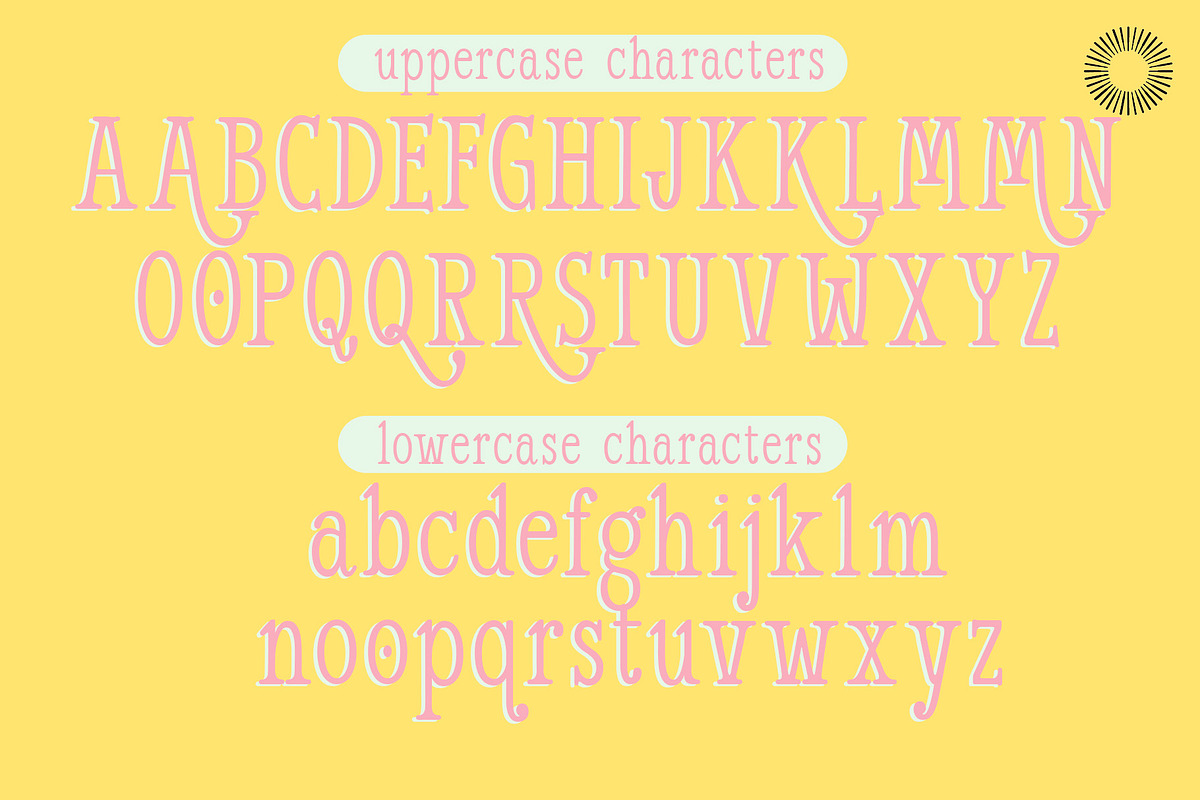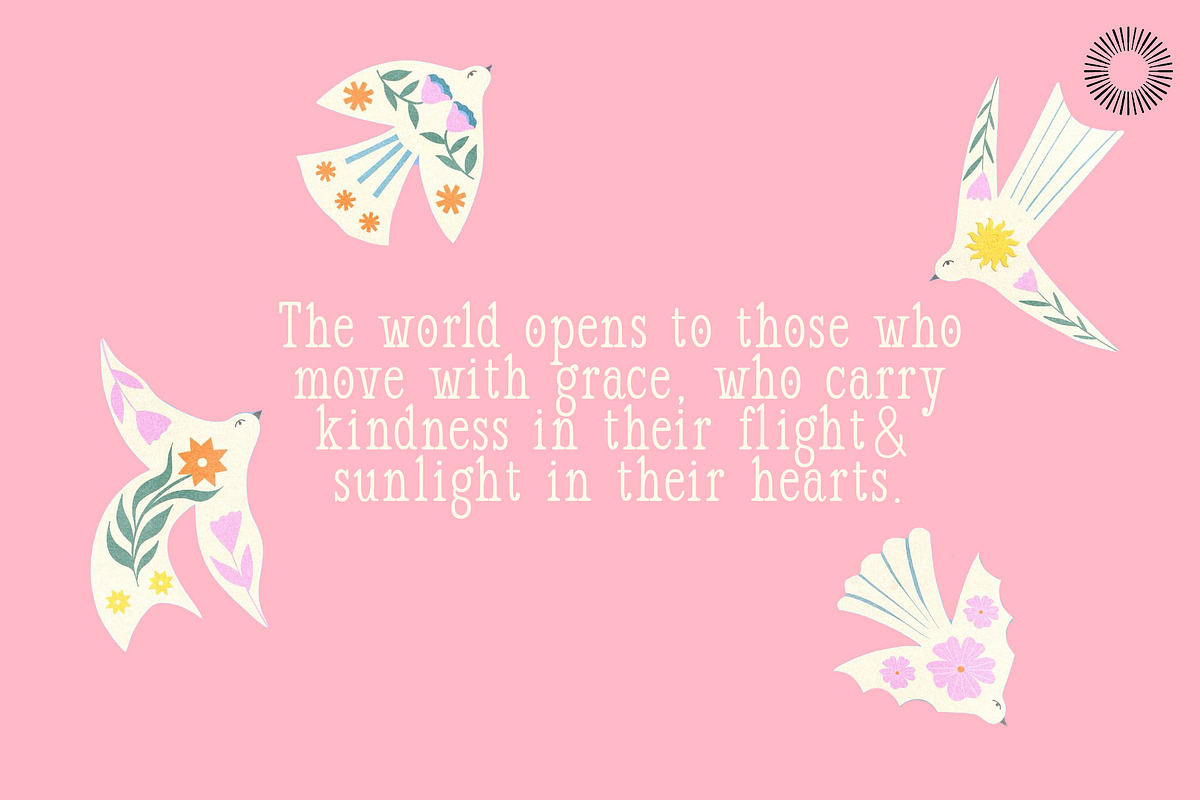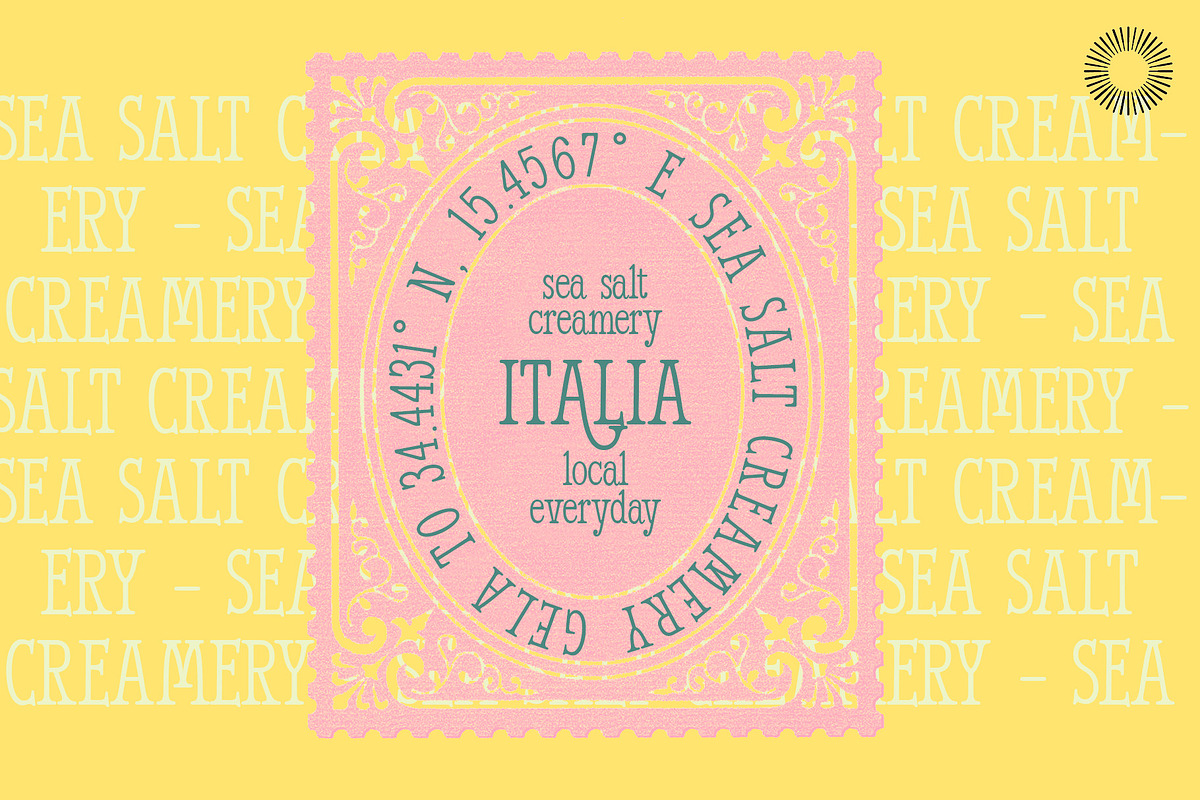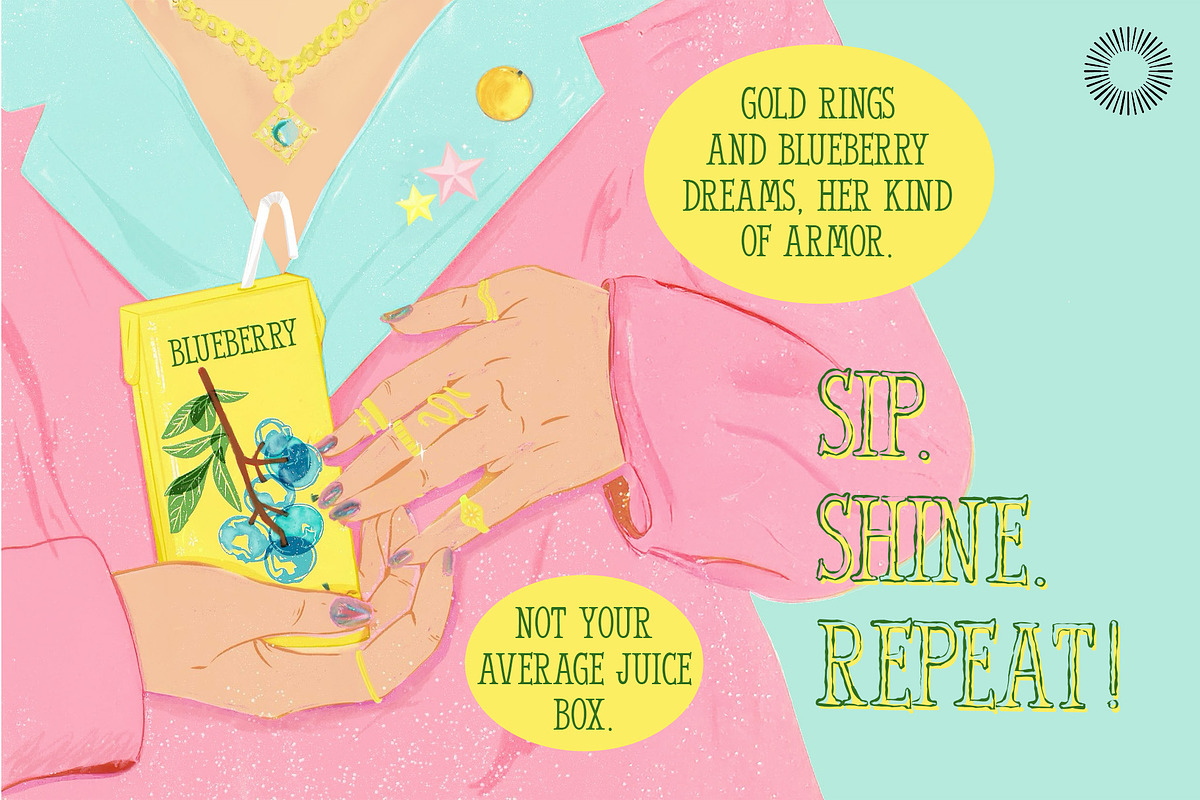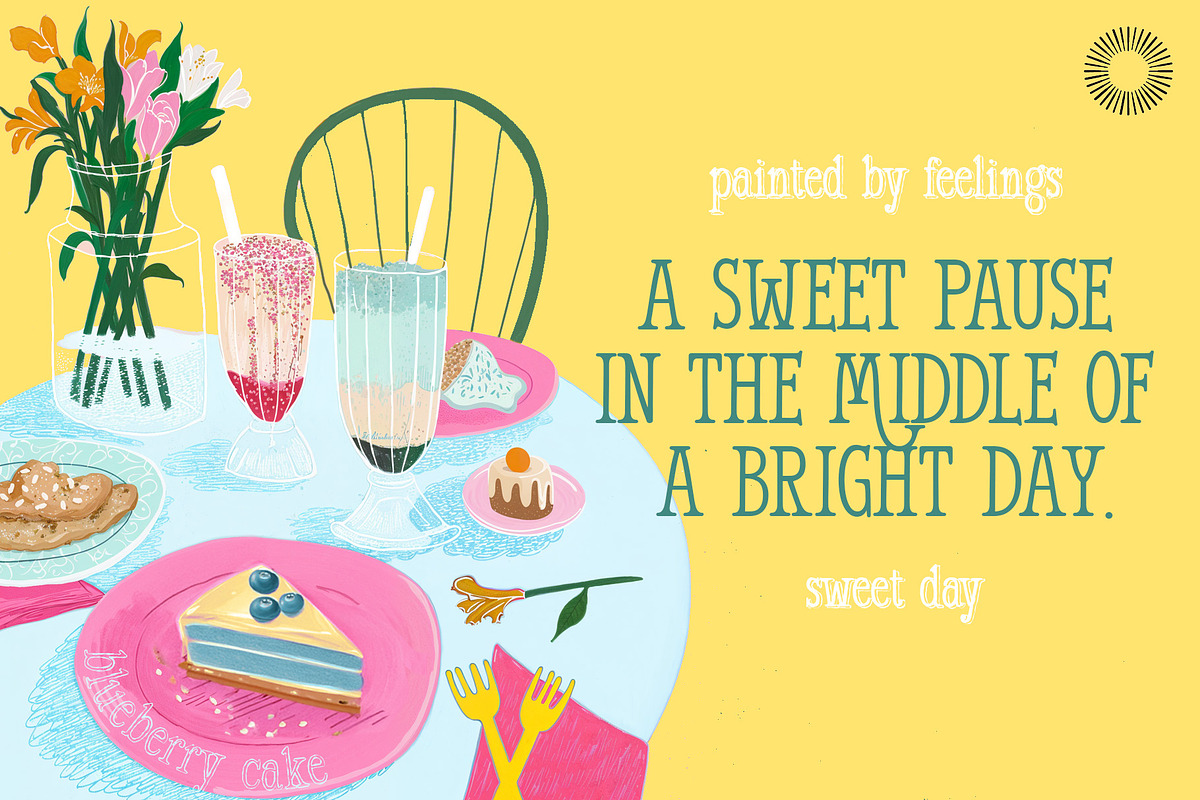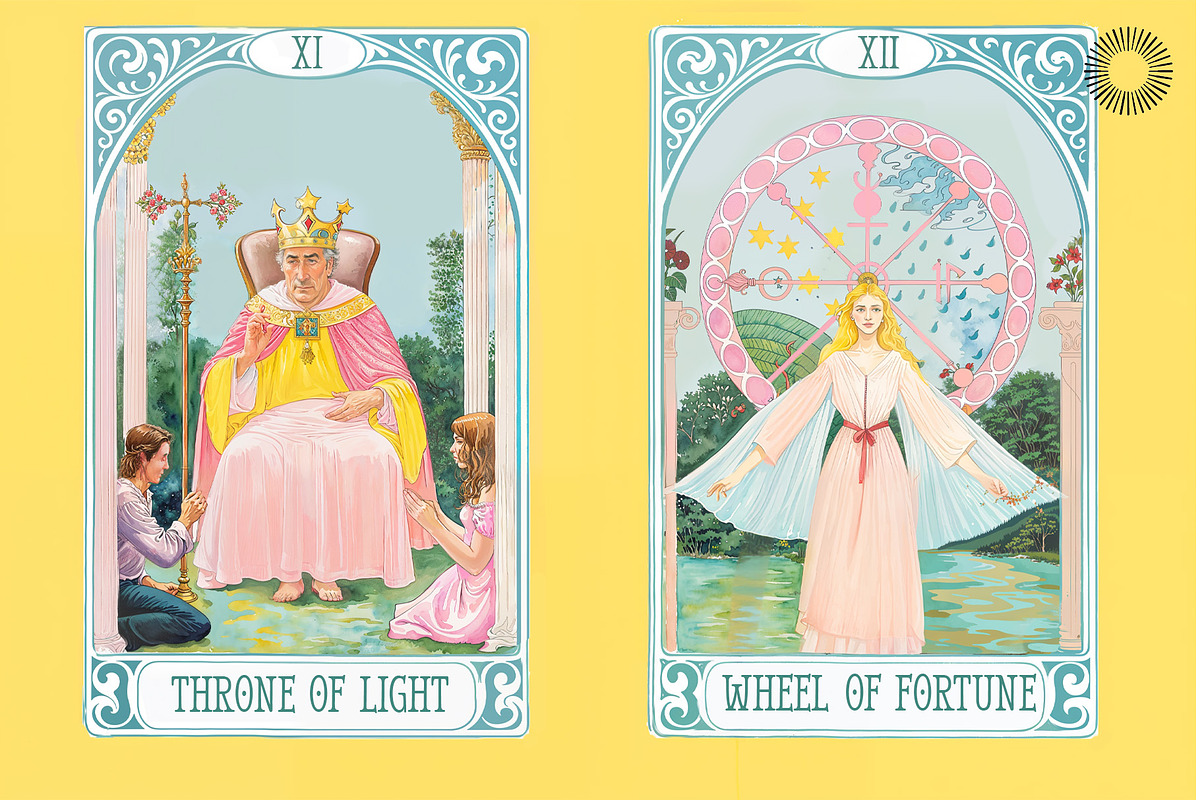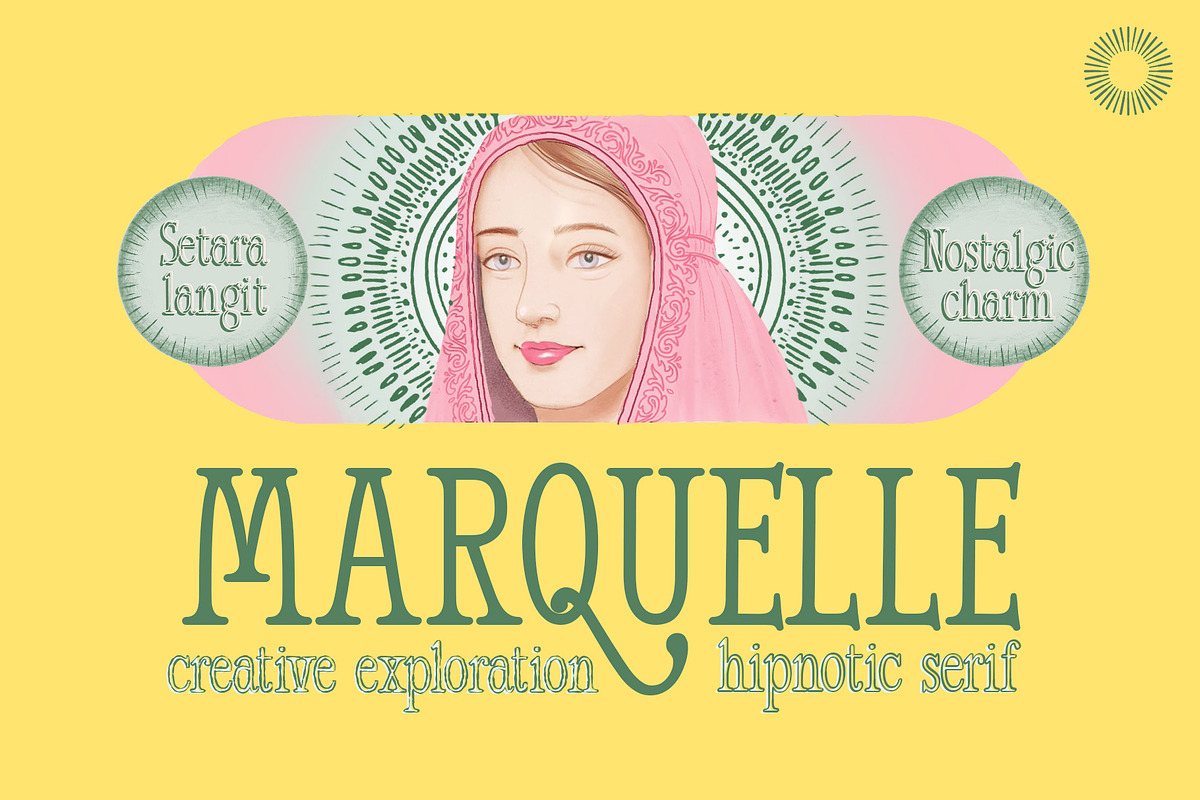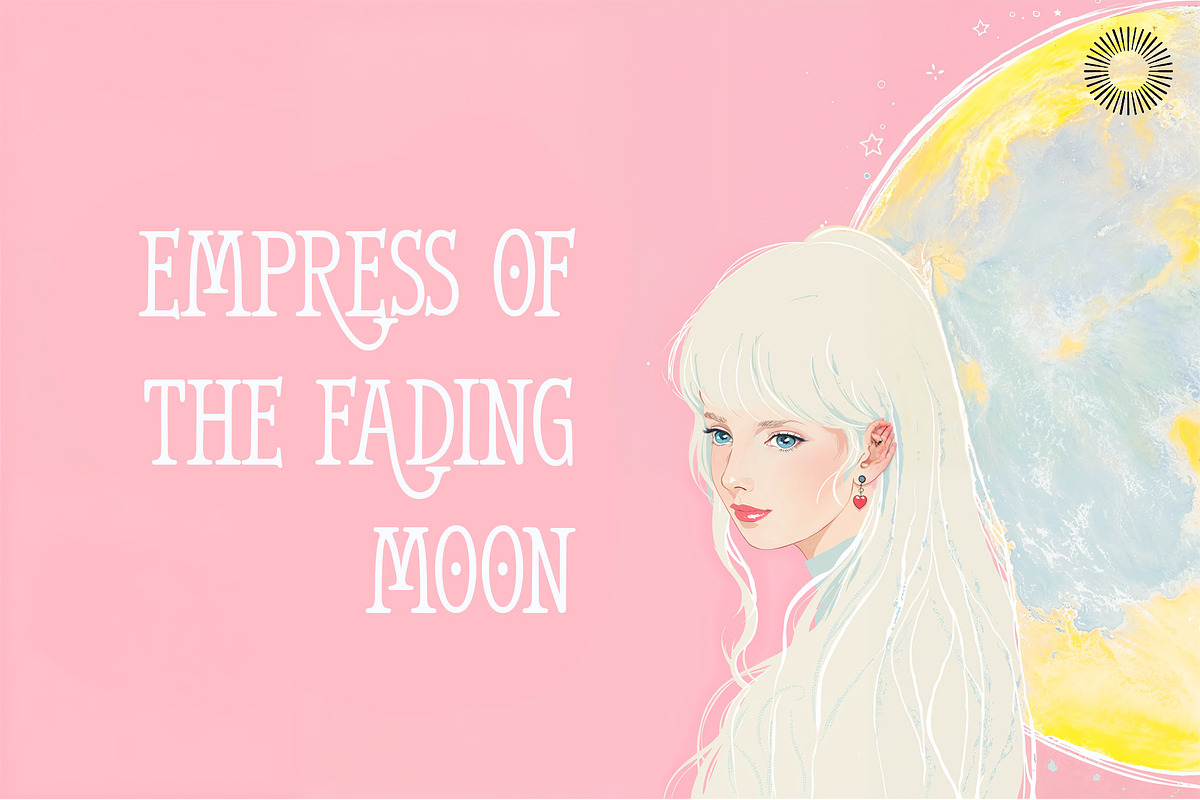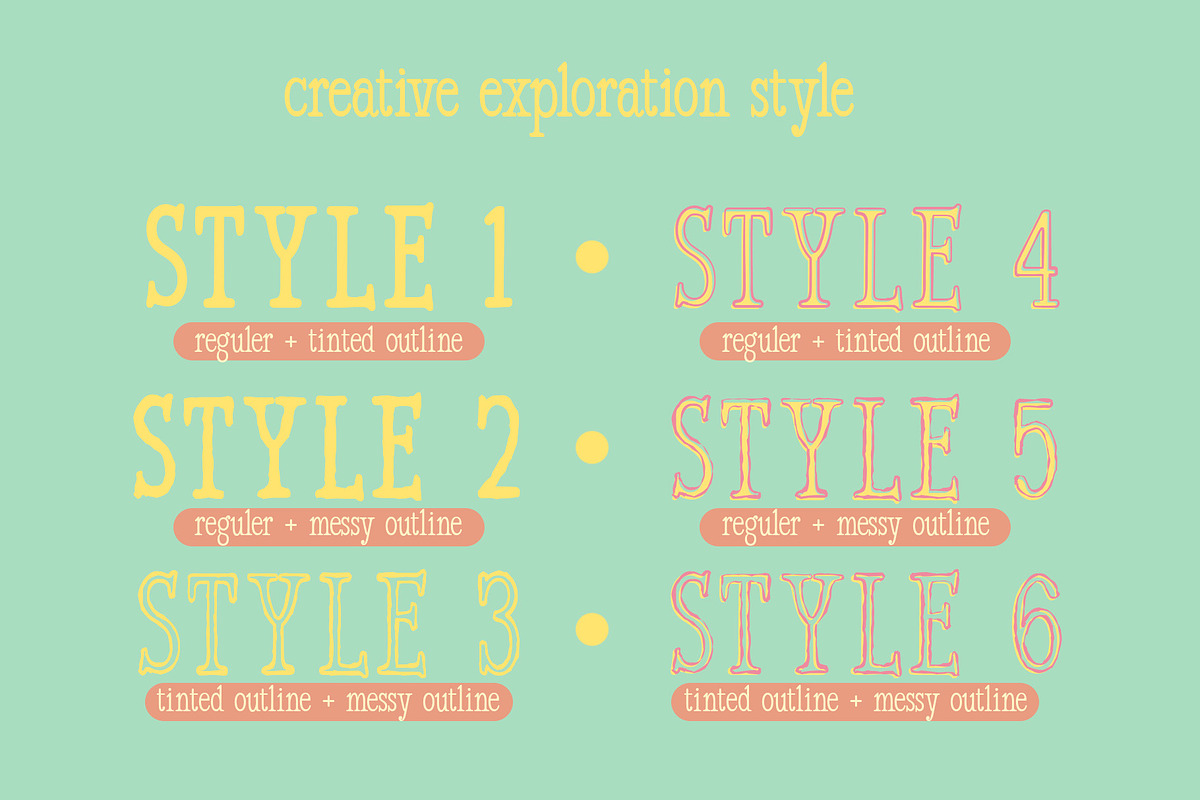
Marquelle - Nostalgic charm
Marquelle is a hypnotic serif that blends nostalgia and creative exploration into one graceful form. Each curve carries the warmth of vintage charm, while its elegant structure keeps every word captivating and timeless. Designed to echo the beauty of classic typography, Marquelle invites you to step into an era where letters were crafted with soul and intention. From delicate serifs to its slightly whimsical rhythm, this font dances between old-world romance and modern curiosity. Perfect for posters, branding, and editorial works that long for both story and sophistication, Marquelle isn’t just a font. it’s a memory retold through design.